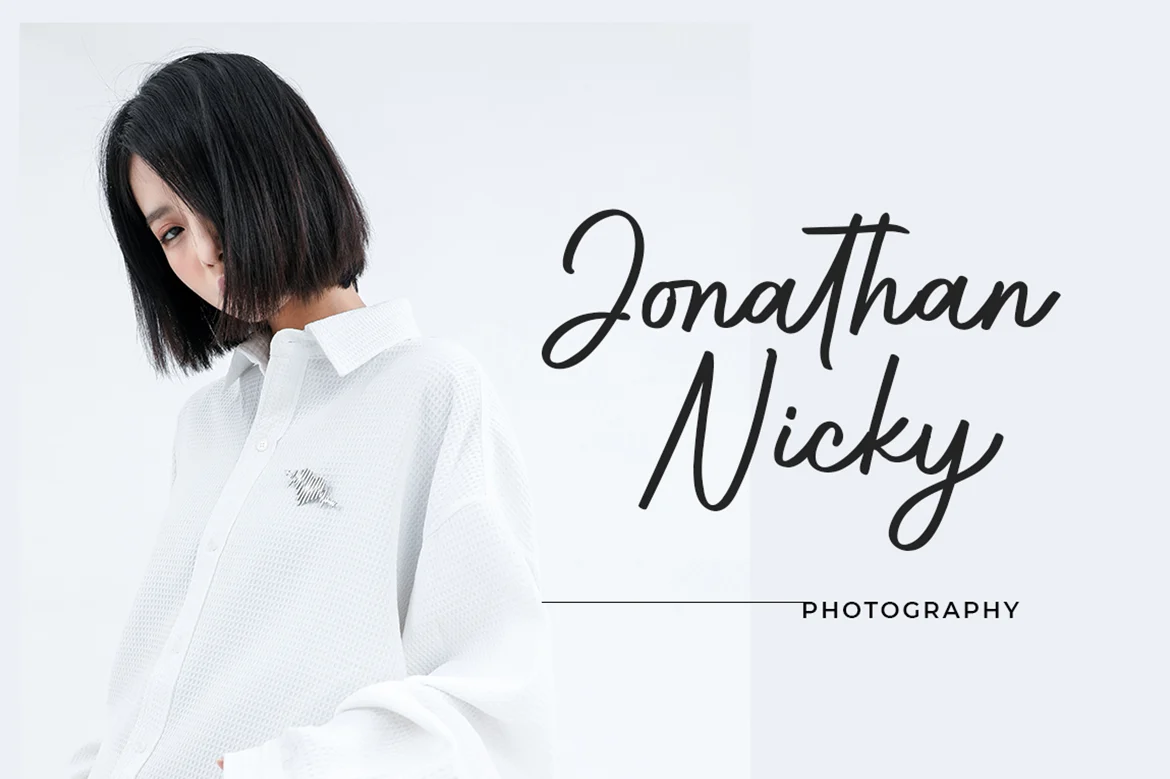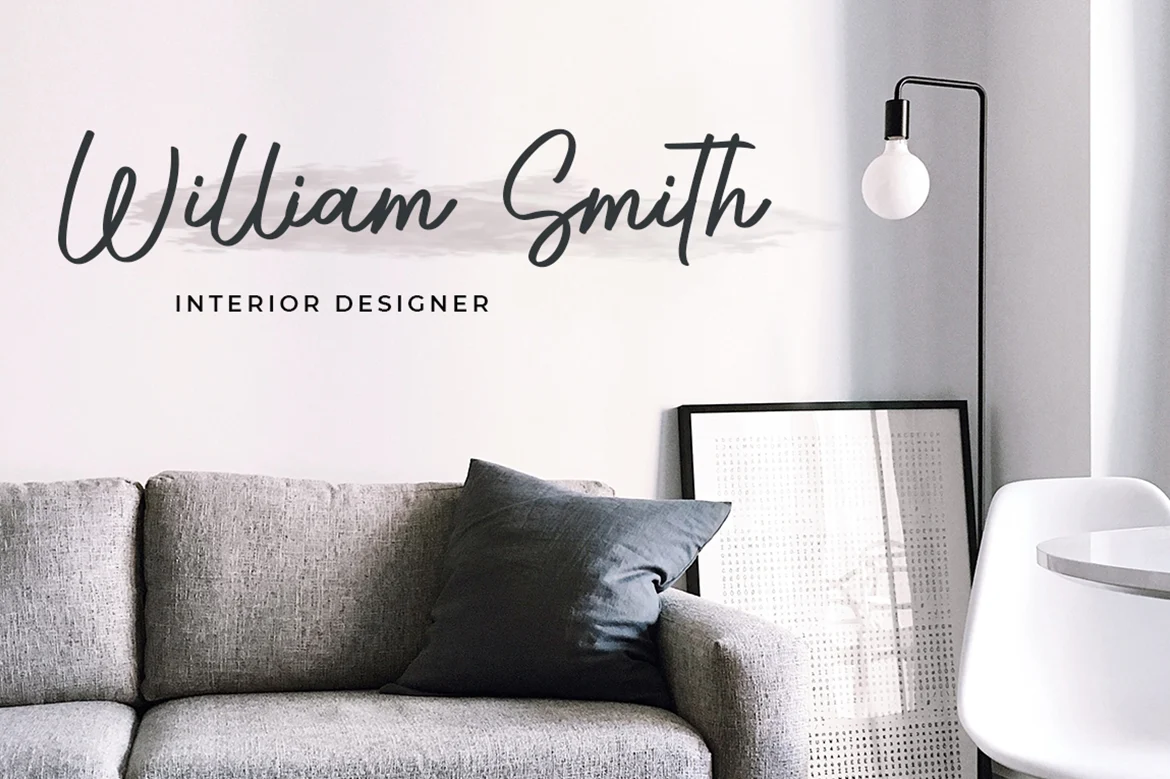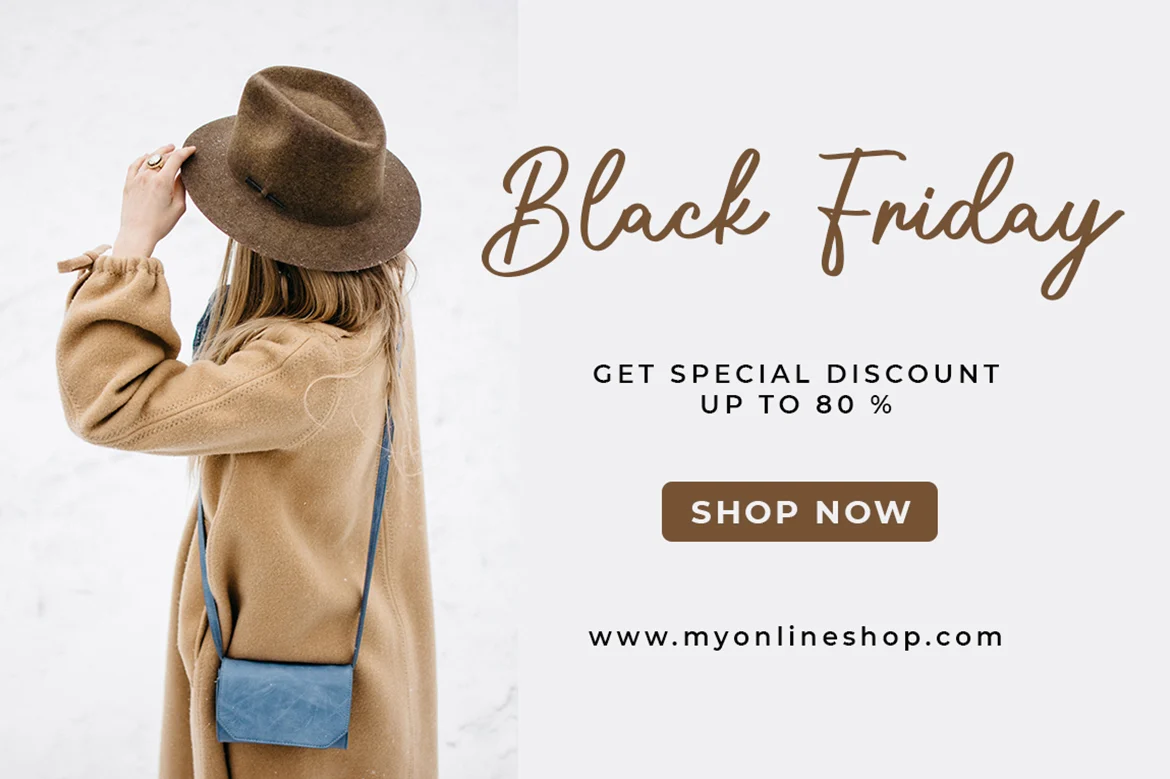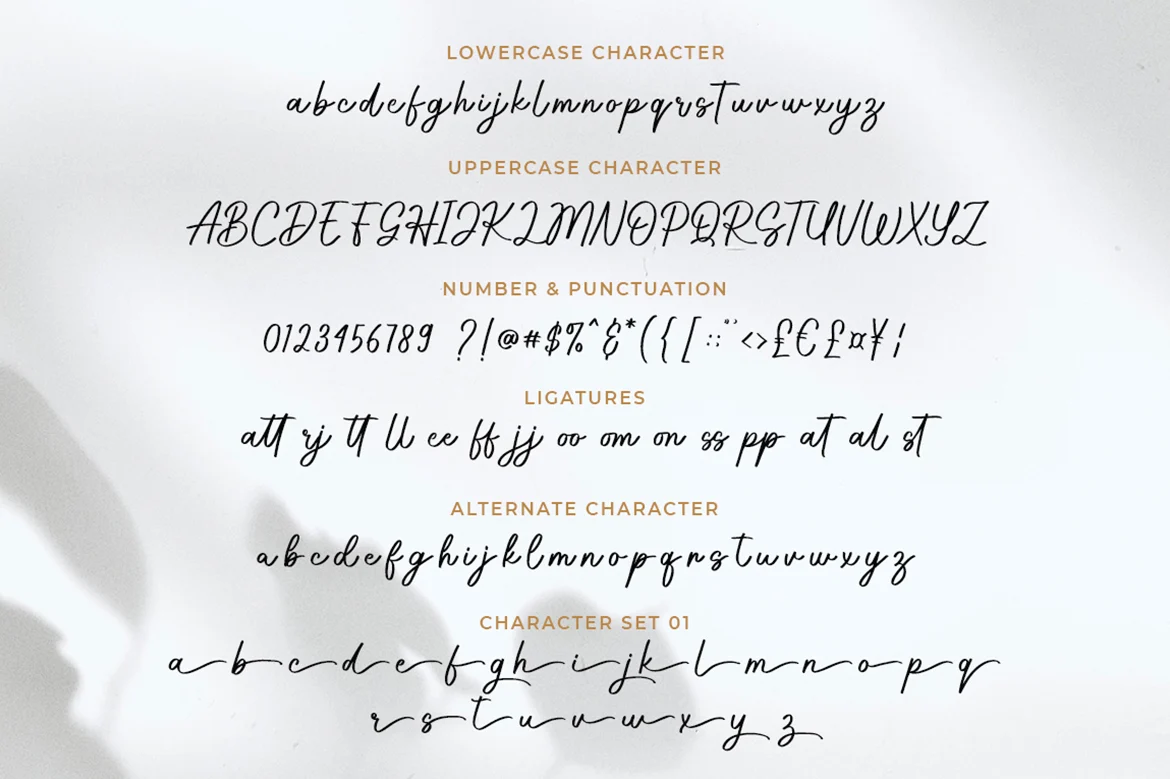
Monalisa – Luxury Script Font
This is our newest product font called Monalisa. Monalisa is a beautiful and casual handwritten font. This stylish font will look gorgeous on a variety of design ideas. It will add a joyful and modern touch to each of your projects!
- Stylistic Alternate
- Stylistic Set
- Support Multilingual Languange